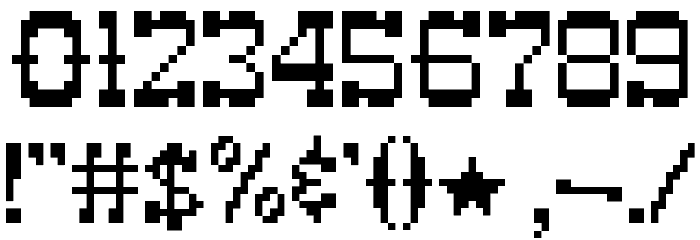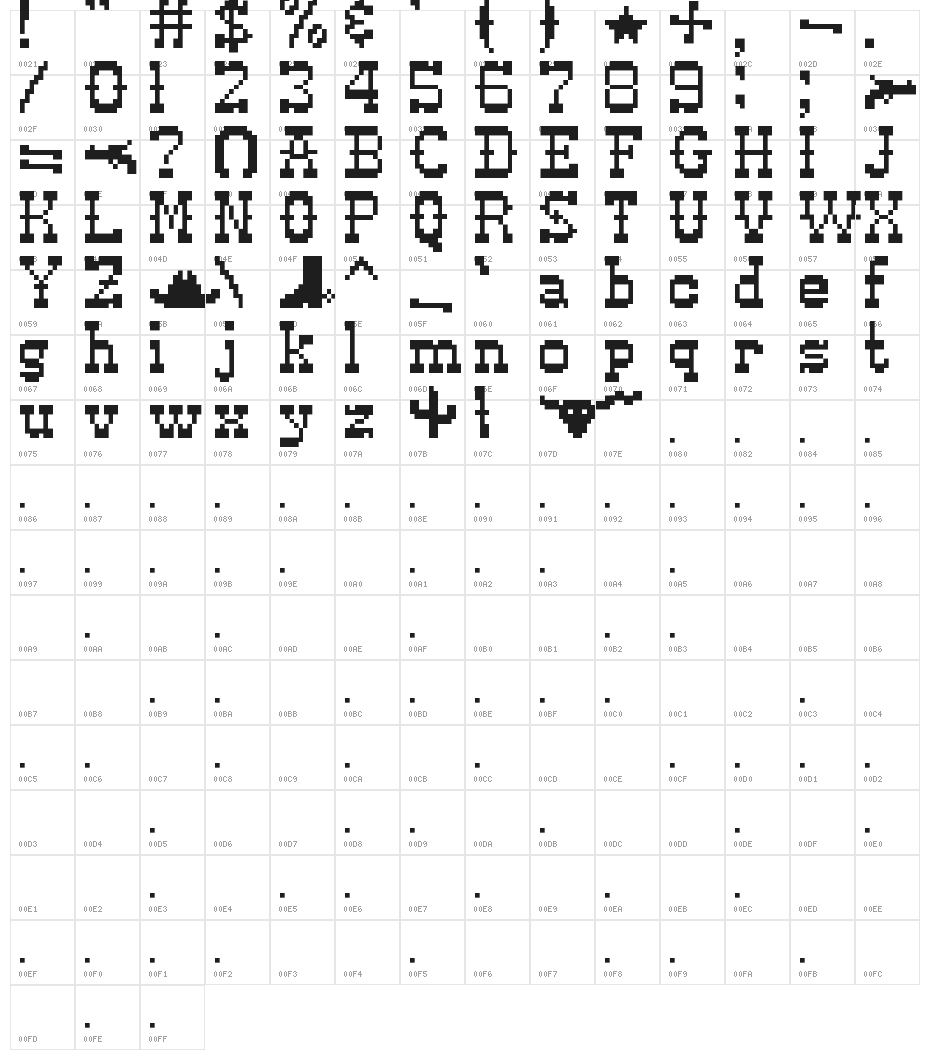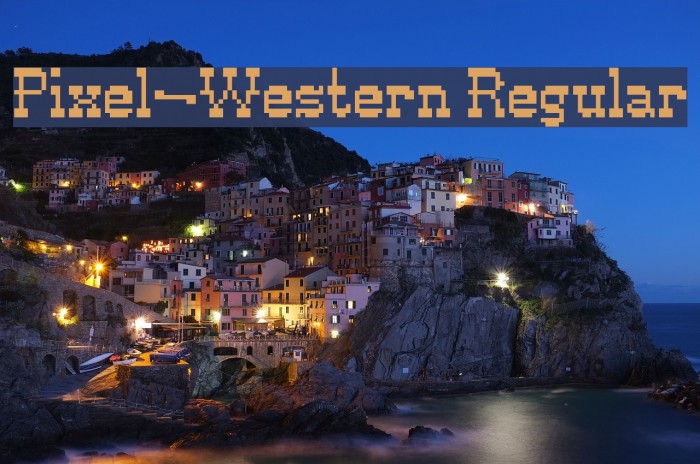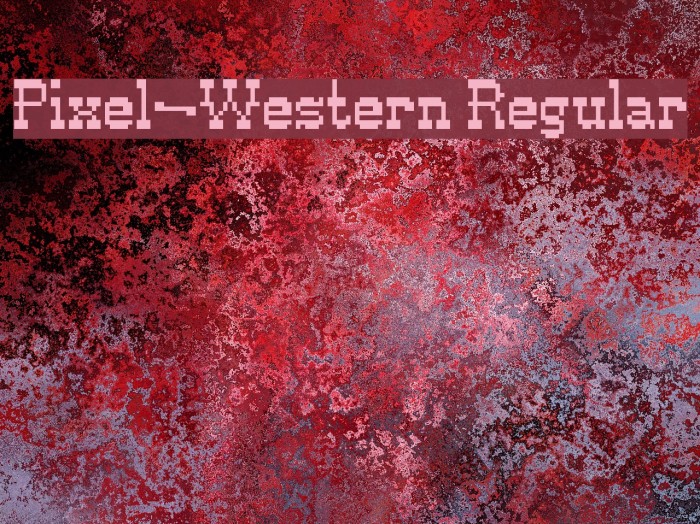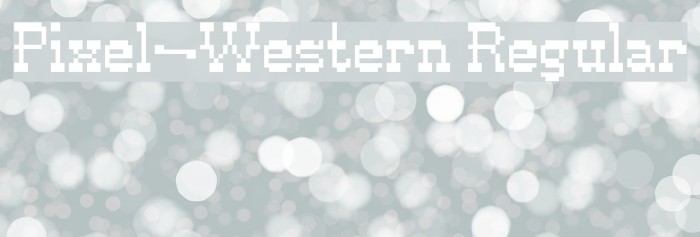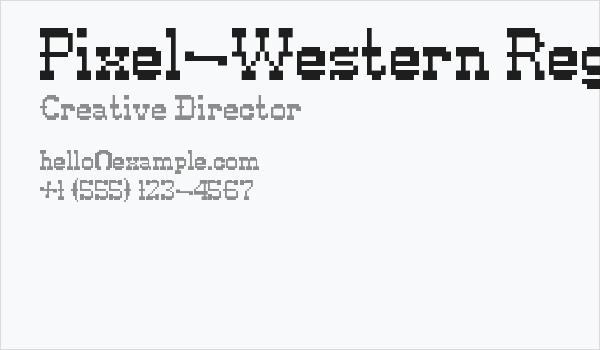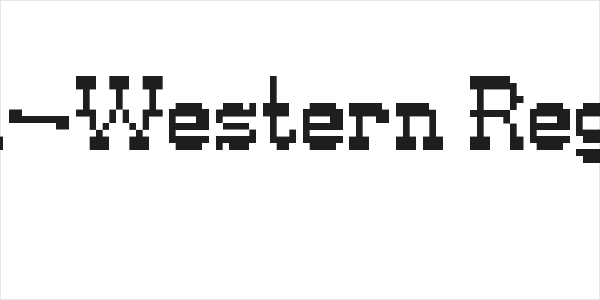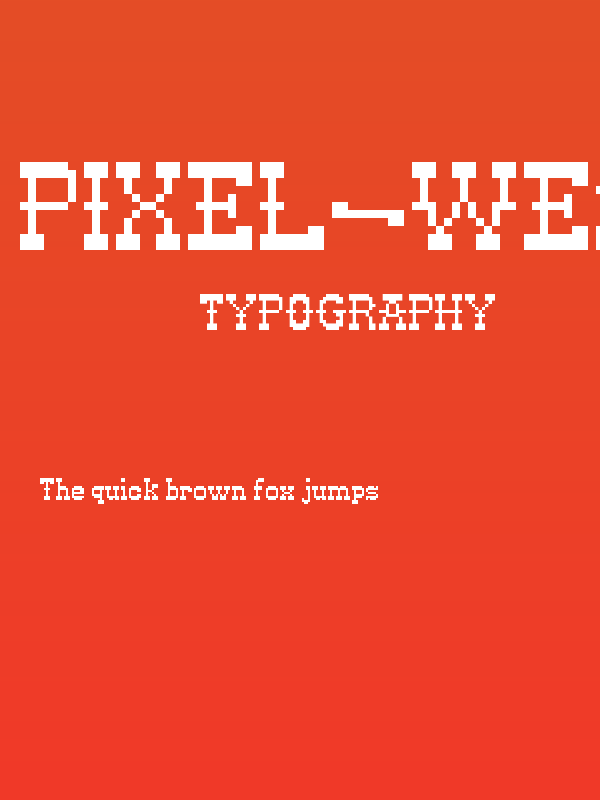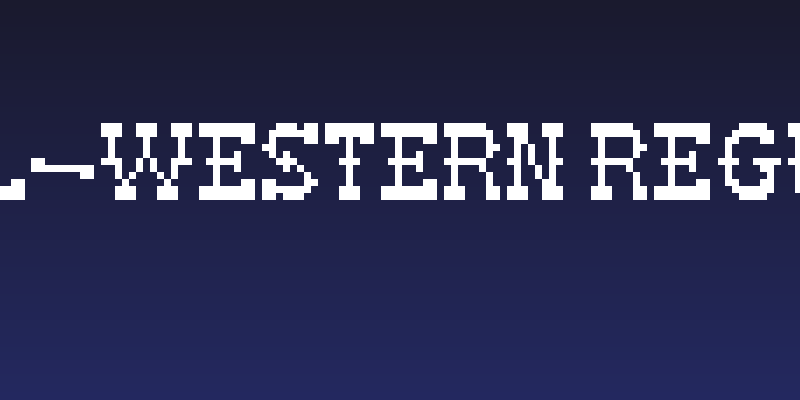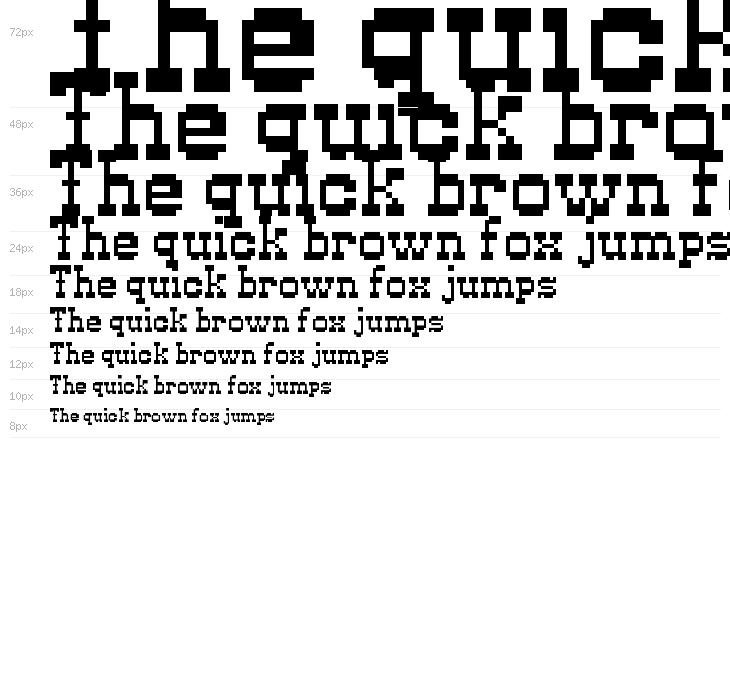
Pixel-Western Regular Font
Pixel-Western Regular Description
This font features a pixelated, blocky style reminiscent of early digital displays and retro gaming aesthetics. Each character is constructed with a grid-like pattern, giving it a distinctly digital and vintage feel. The uppercase and lowercase letters maintain a consistent height and width, contributing to a uniform appearance. The numerals and special characters follow the same pixelated design, ensuring cohesion across all glyphs. This font's unique style captures the essence of a bygone era of technology, making it ideal for projects that aim to evoke nostalgia or a retro-futuristic vibe.